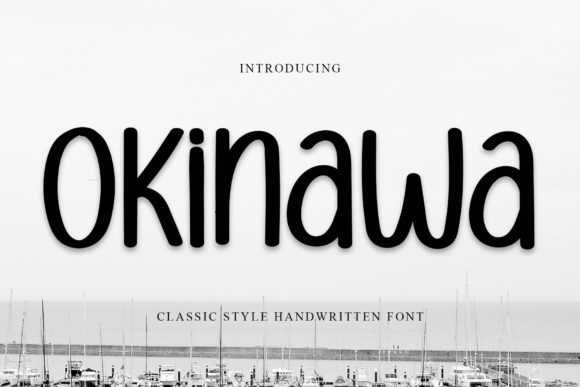
About Okinawa Font
Okinawa is a beautiful handwritten font. This font is perfect for use on wedding invitations, greeting cards, billboards, logos, business cards, and any other design that requires a handwritten touch.